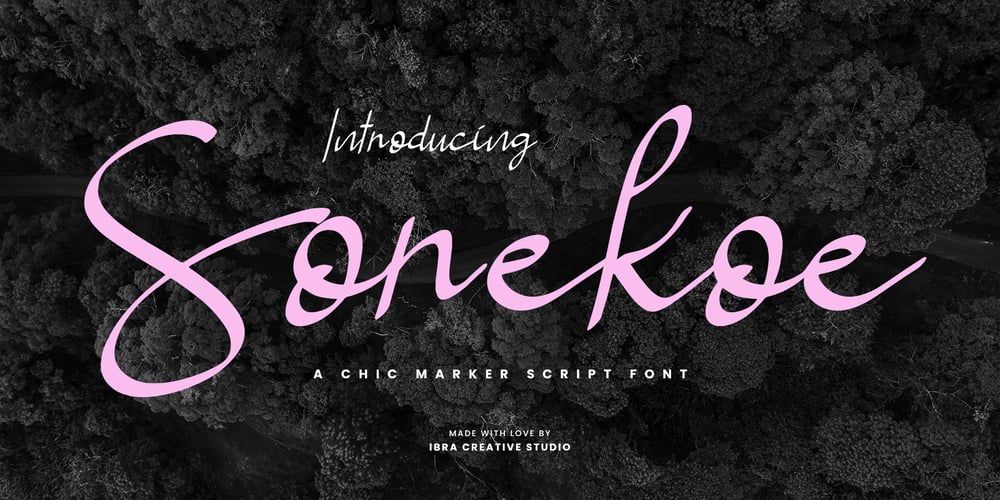
Sorekoe Font Family was designed by Roisatul Azizah and published by IbraCreative. Sorekoe contains 1 styles and family package options. Sorekoe – A Chic Marker Script FontSorekoe, a chic marker script font, exudes a perfect blend of casual elegance and contemporary style. With its fluid strokes and graceful curves, Sorekoe captures the essence of handwritten charm while maintaining a sophisticated, modern appeal. This marker script font is characterized by its effortlessly chic and refined aesthetic, making it an ideal choice for projects that seek a balance between informality and a touch of sophistication. Sorekoe’s versatility shines through in both casual and upscale contexts, offering a distinctive handwritten flair that adds a personalized, stylish touch to any design, from invitations and branding materials to creative displays and beyond.Sorekoe is perfect for branding projects, logo, wedding designs, social media posts, advertisements, product packaging, product designs, label, photography, watermark, invitation, stationery, game, fashion and any projects.Fonts include multilingual support for; Afrikaans, Albanian, Czech, Danish, Dutch, English, Estonian, Finnish, French, German, Hungarian, Italian, Latvian, Lithuanian, Norwegian, Polish, Portuguese, Slovak, Slovenian, Spanish, Swedish.